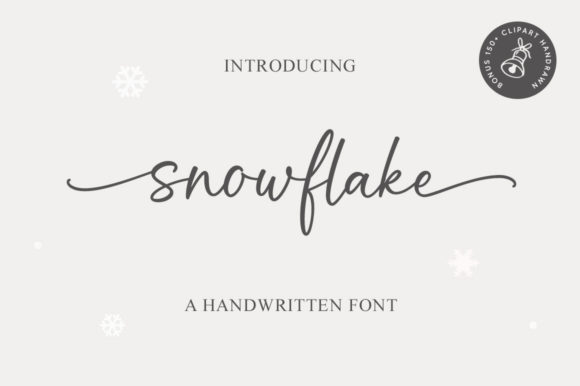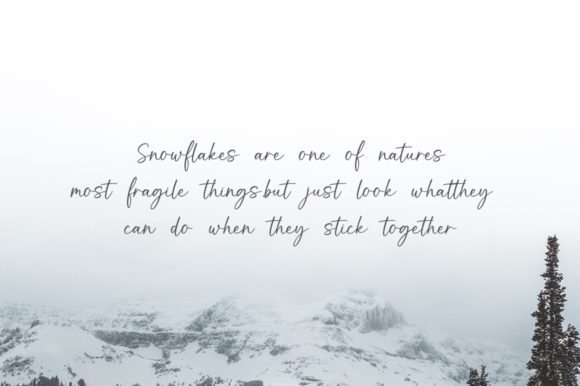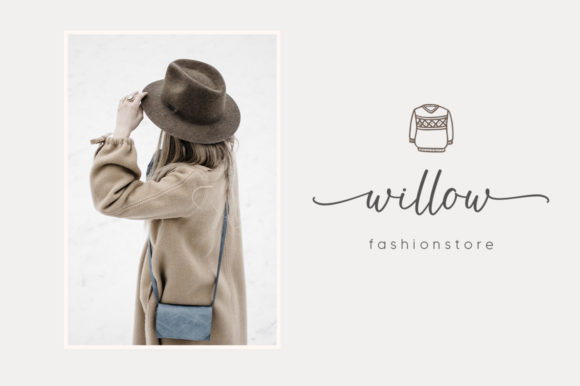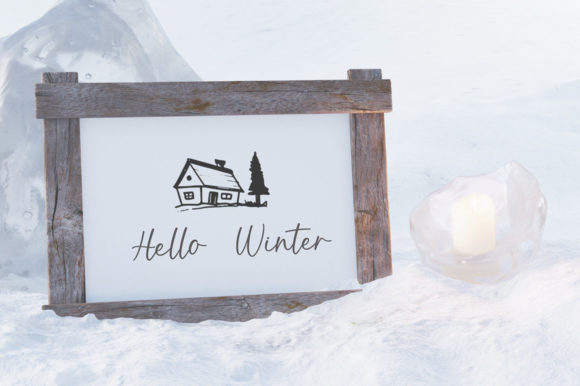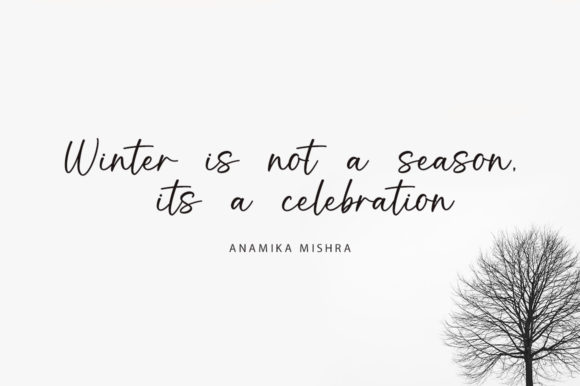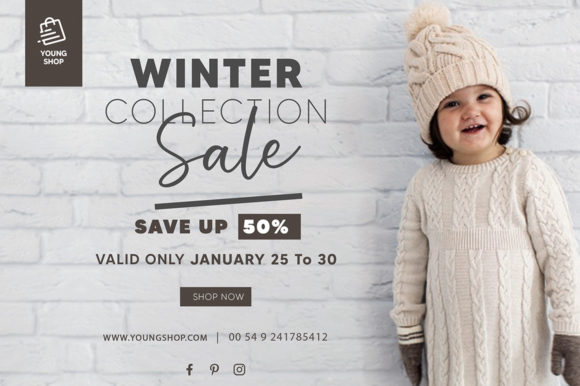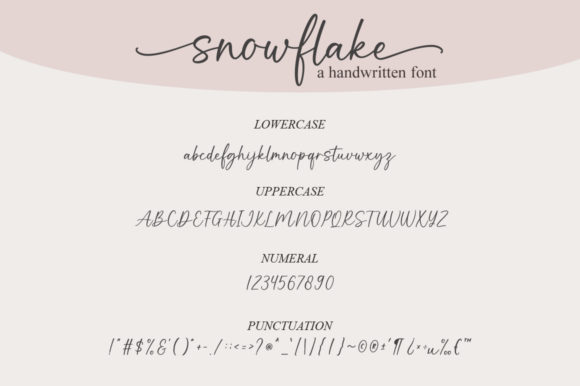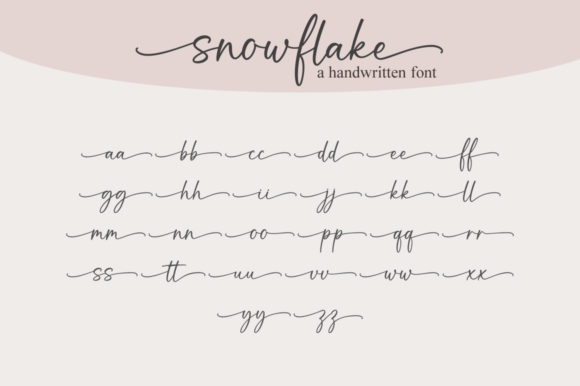
Snowflake Font
About Snowflake Font
Snowflake is a thin lettered and graceful script font. Trendy and stylish, this font will elevate each of your creations.